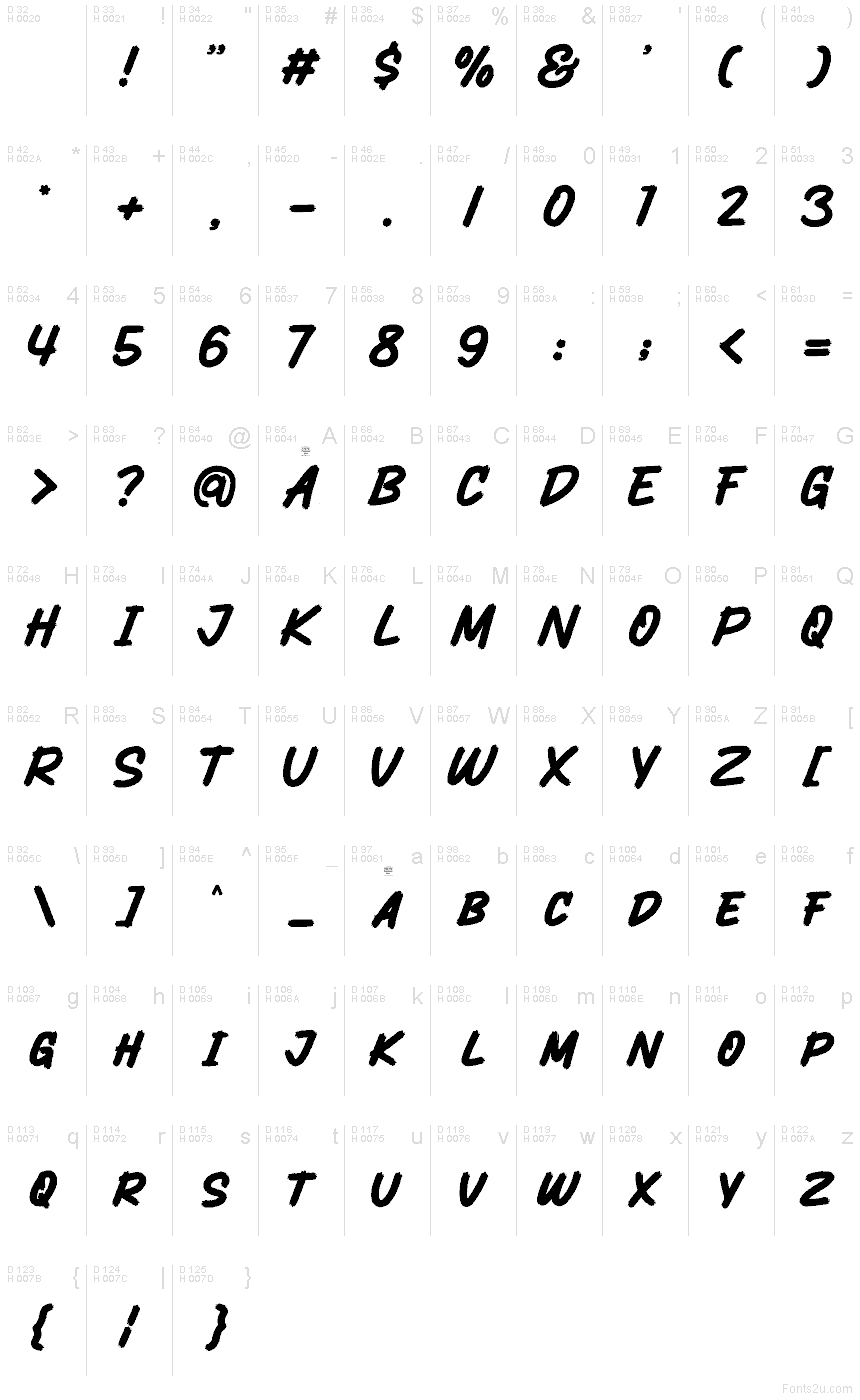
BADAZ Regular
Badaz font by Ermedia Studio is a free brush display font. Built with heavy, swept strokes and gritty, frayed edges, it carries the snap of a fresh paint swipe—thick, fast, and a little unruly. The forward lean and inky texture push headlines off the page, giving designs that loud, hand-made hit without sacrificing legibility.
Using Badaz, you can inject attitude into streetwear logos, sports branding, gig posters, YouTube thumbnails, energy drink packaging, and album covers. This free font shines on oversized titles, where its chunky rhythm and streaked details read instantly from a distance. For balance, pair it with a clean condensed sans in small text, and let Badaz take the spotlight up top.